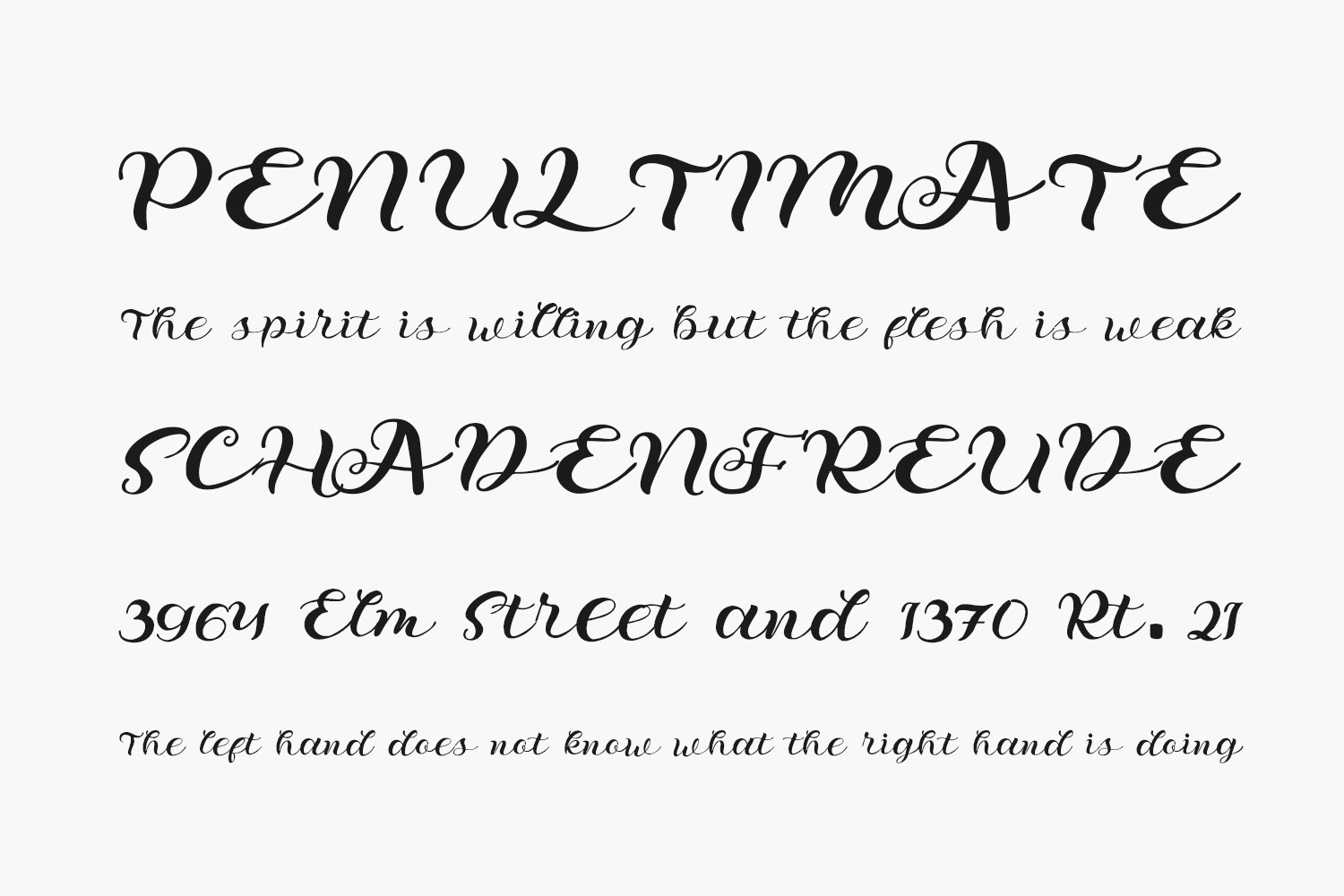
Shaking Free Font is an elegant and flowing handwritten font. It is PUA encoded which means you can access all of the glyphs and swashes with ease! It features a varying baseline, smooth lines, gorgeous glyphs, and stunning alternates. Shaking Free Font was designed by !bey Design and is free for personal use only. Please purchase the full version for commercial use.